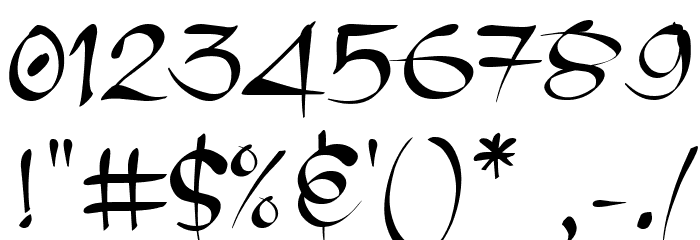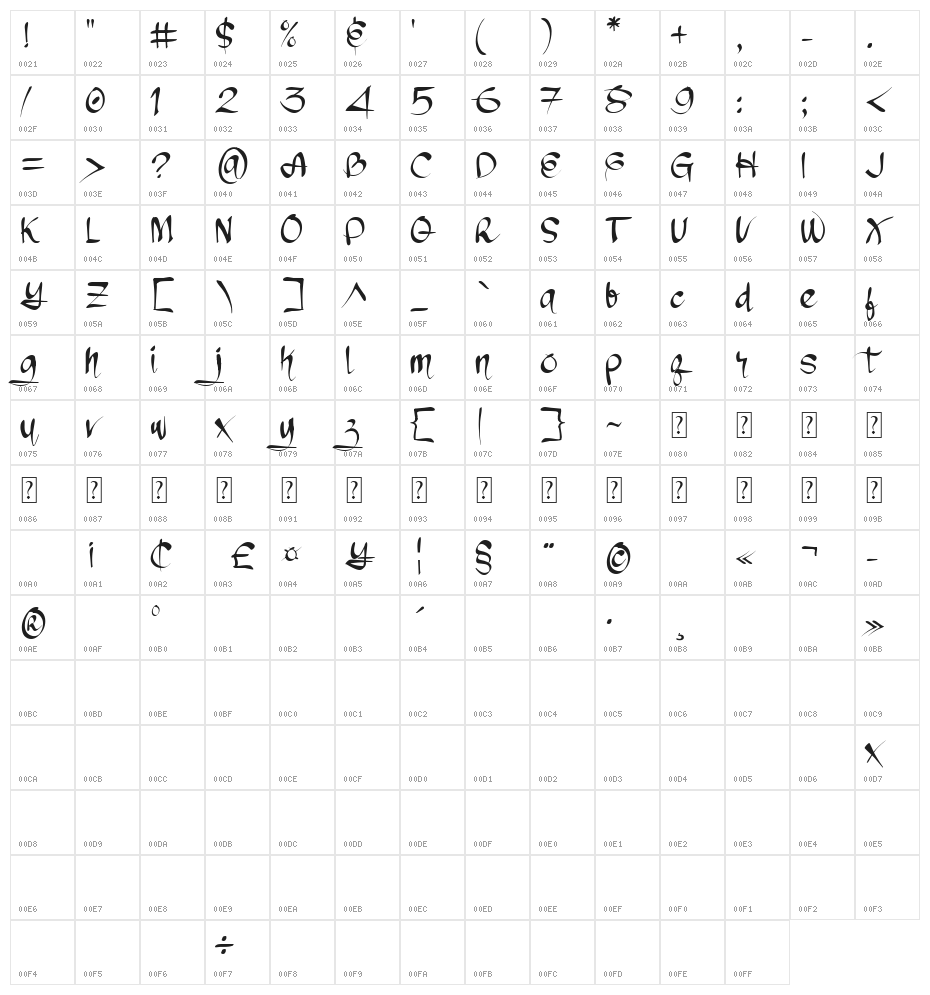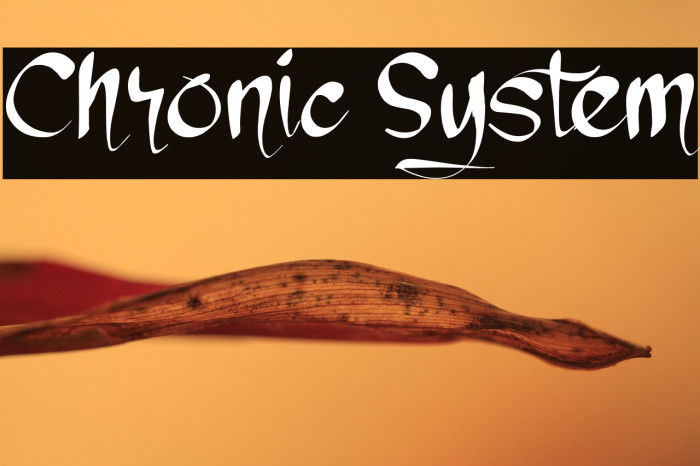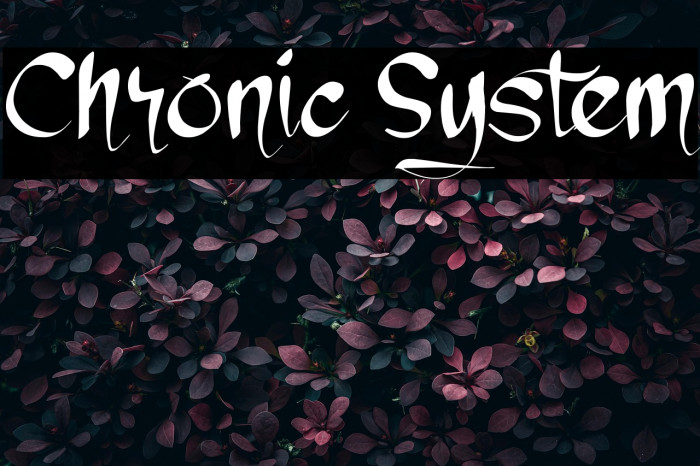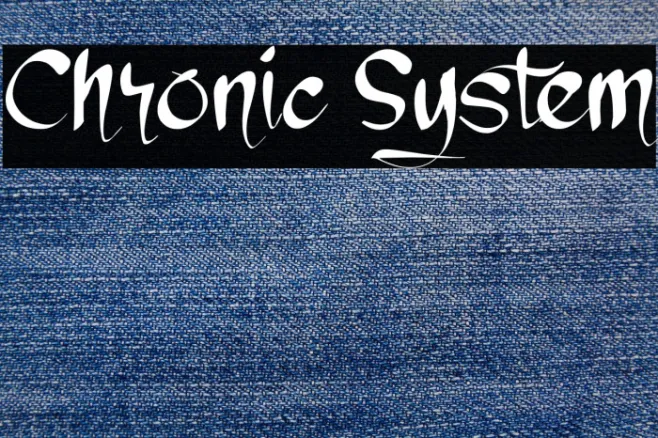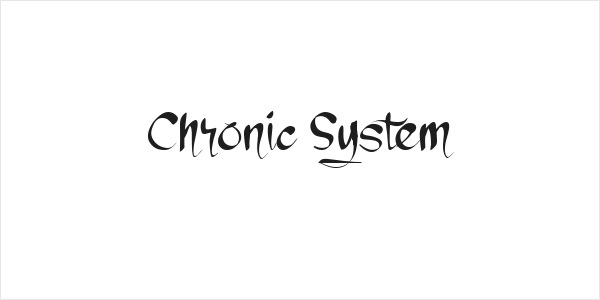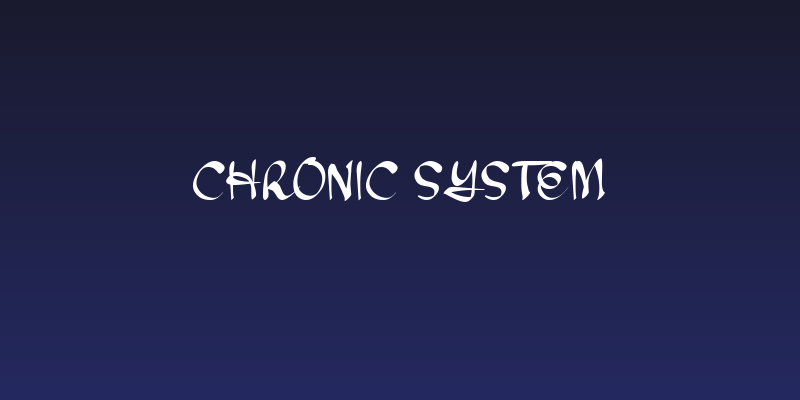
Chronic System Font
Chronic System Description
This font features a dynamic and expressive style, characterized by its bold and flowing strokes. The letters have a calligraphic influence, with a mix of sharp and smooth curves that create a sense of movement and energy. The uppercase letters are particularly striking, with exaggerated flourishes and unique shapes that make each character stand out. The lowercase letters maintain this fluidity, offering a cohesive look across the alphabet. Numbers and special characters are equally distinctive, with a playful yet sophisticated appearance. This font's artistic flair makes it suitable for creative and eye-catching designs.